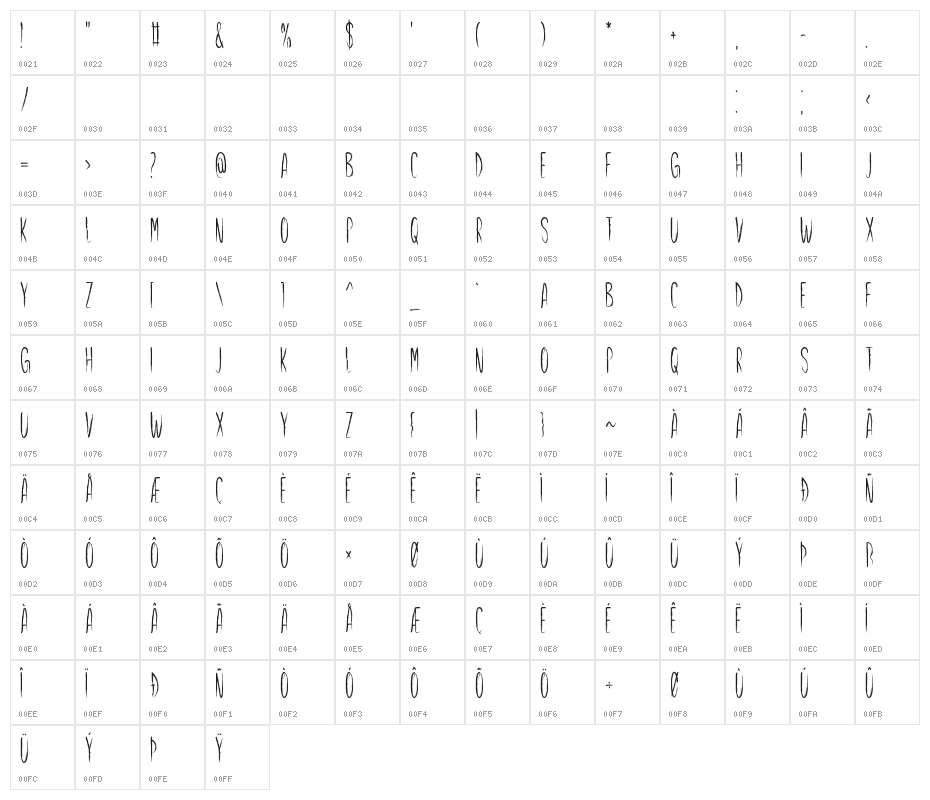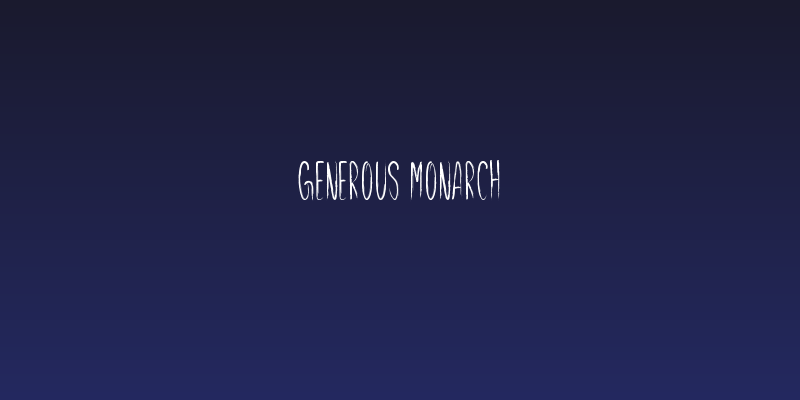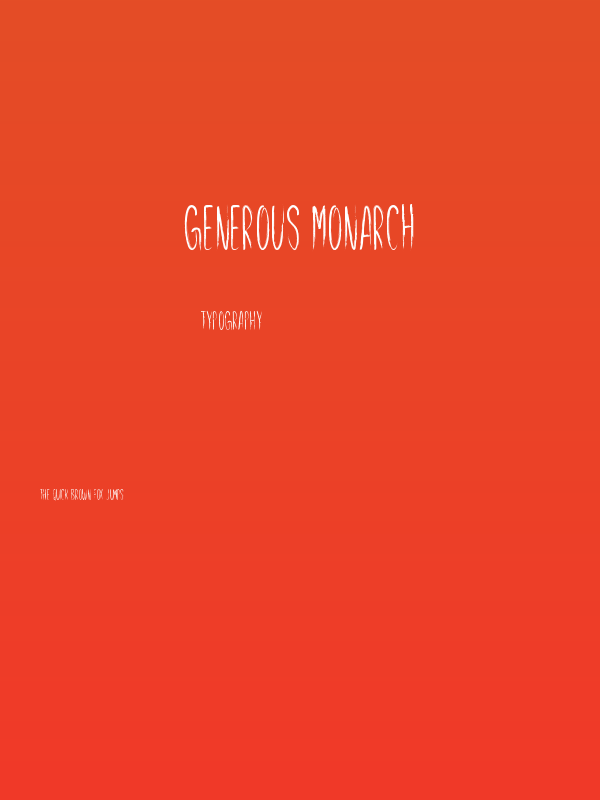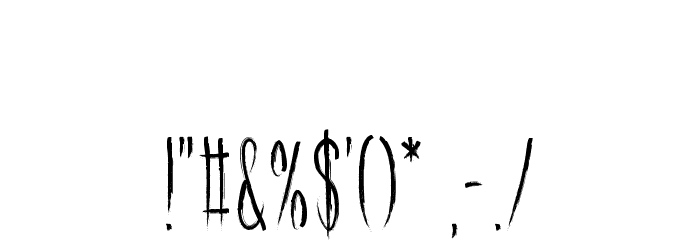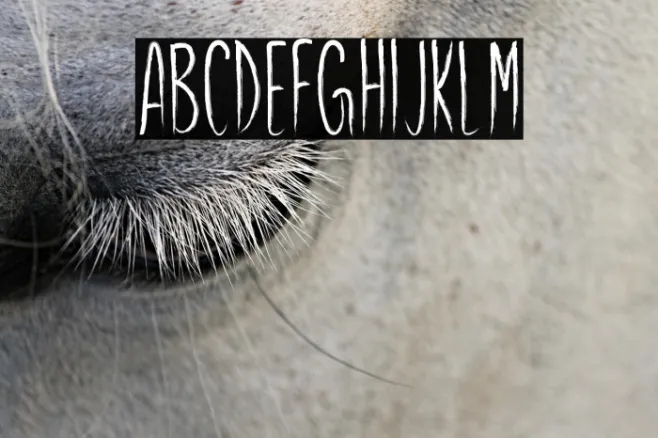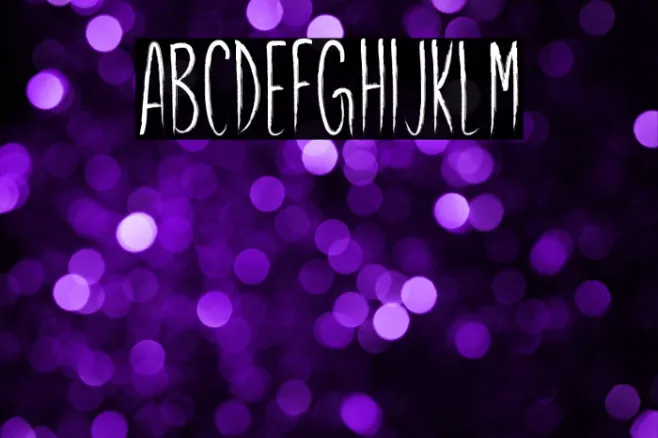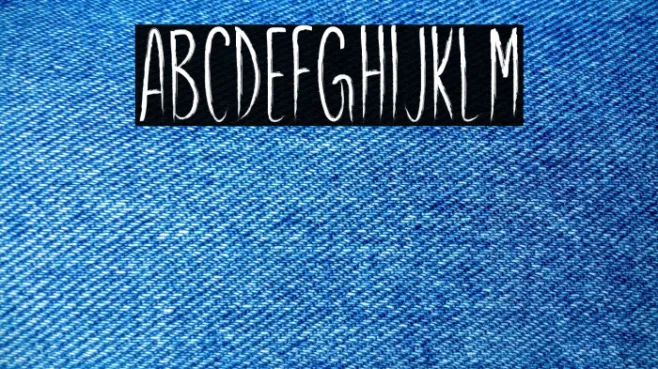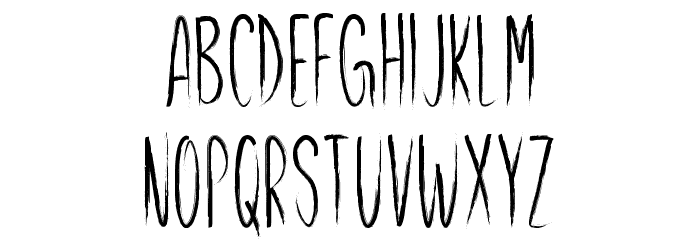
Generous Monarch Font
Generous Monarch Description
This font features a distinctive, elongated style with sharp, tapering strokes that give it a dramatic and edgy appearance. The characters are tall and narrow, with a hand-drawn quality that adds a sense of uniqueness and personality. The uppercase and lowercase letters maintain a consistent height, contributing to a cohesive look. The special characters are designed to match the overall aesthetic, with similar sharp and pointed elements. This font's striking design makes it ideal for projects that require a bold and artistic touch.
| Proposed Projects | Ideal for posters, album covers, branding, and any creative project that requires a bold, artistic statement. |